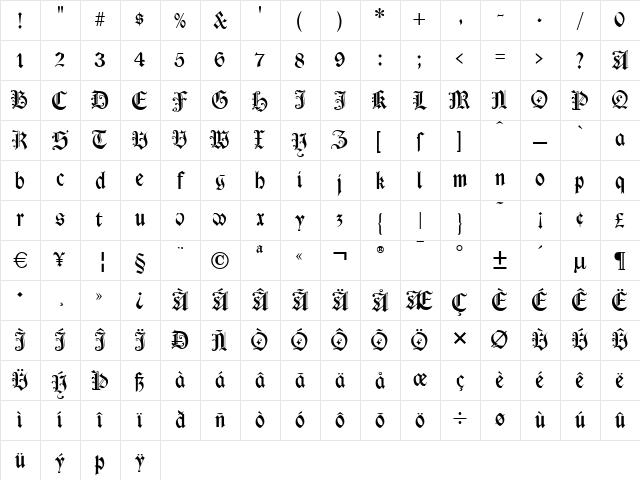
Cimbrian Regular
Design Context for Cimbrian
Cimbrian is a composed and adaptable typeface that performs quietly and consistently across a wide range of design contexts.
Pro Tip: Use Cimbrian in both headline and body roles to test its range before committing to a single application.